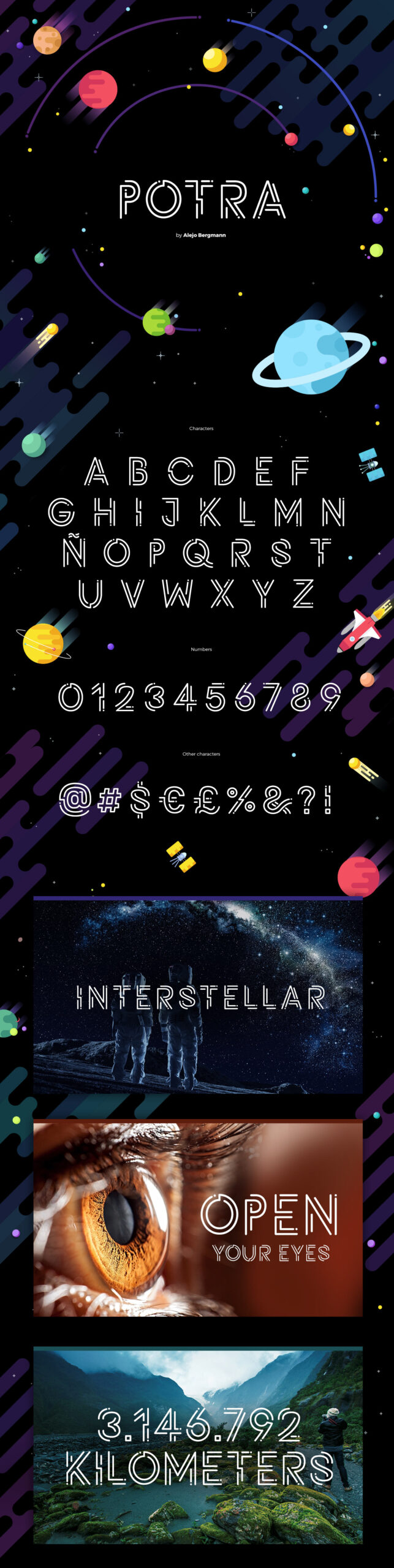
Potra is a futuristic display font with rounded lines designed by Alejo Bergmann. It contains all caps letters, numerals and symbols. This font perfectly suited for a variety display purposes including logotypes, badges and labels, headlines and banners, prints and much more. Free for personal & commercial use!